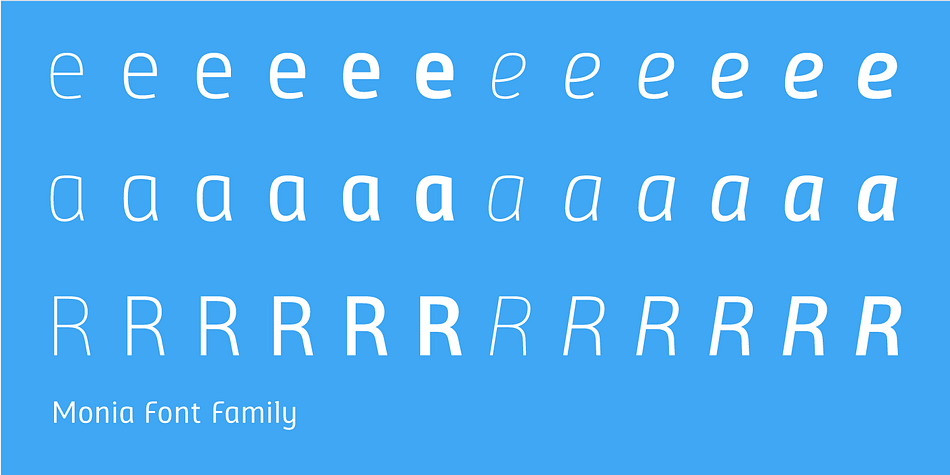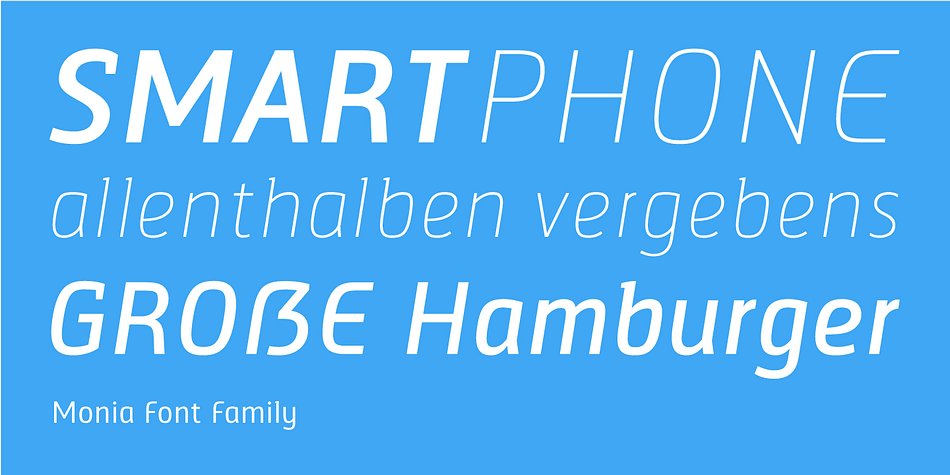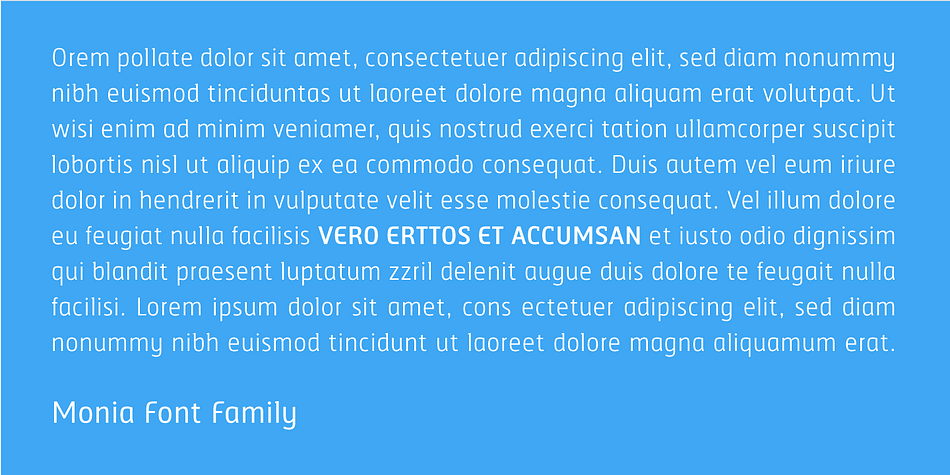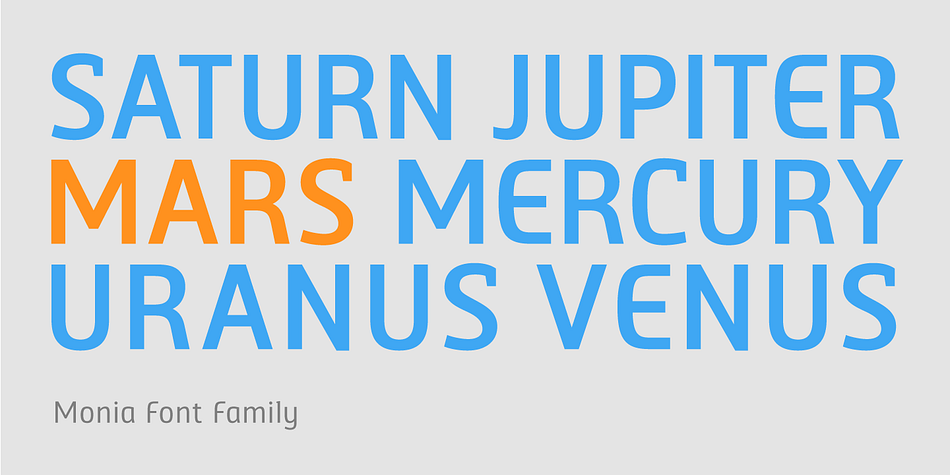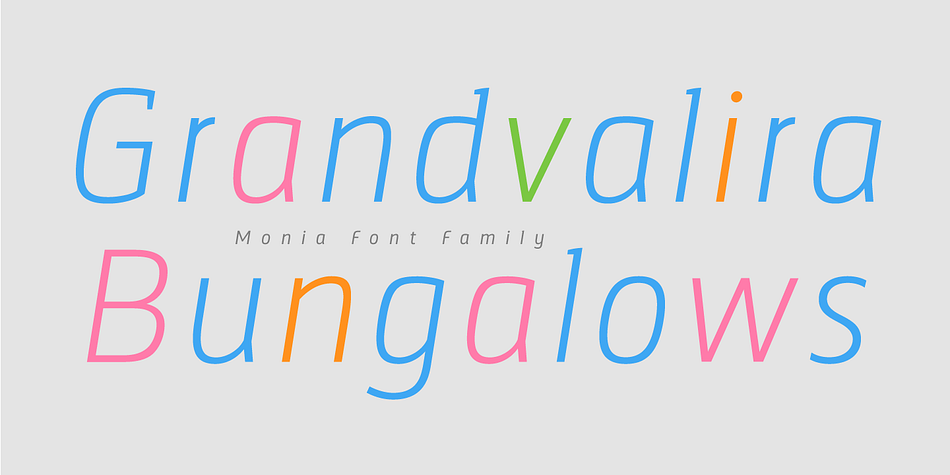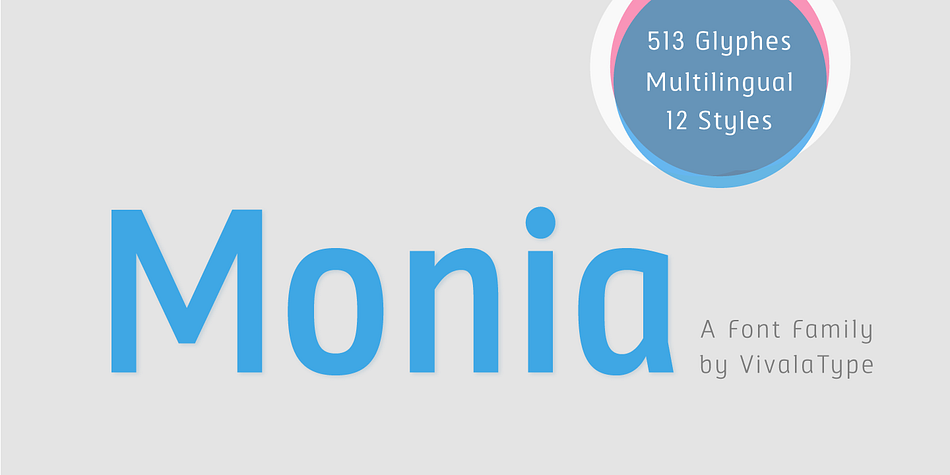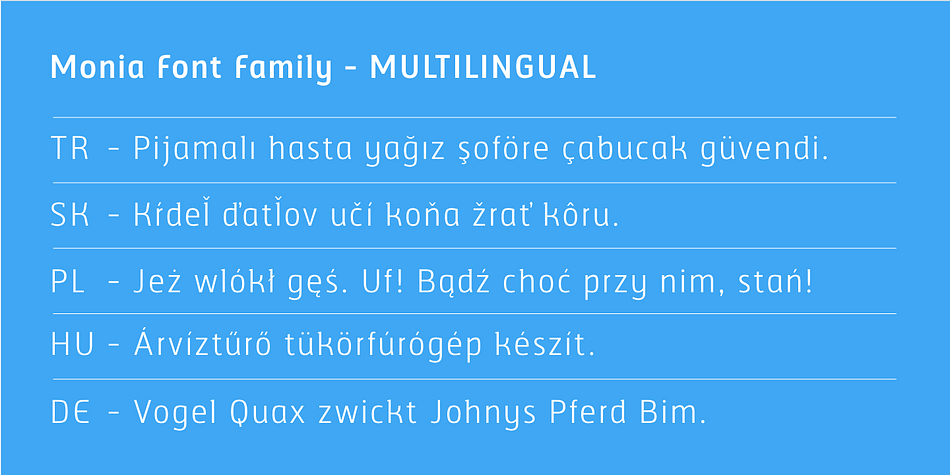
Designed by Johannes Hoffmann, Monia is a sans serif font family. This typeface has twelve styles and was published by Johannes Hoffmann.
Monia is a modern grotesque typeface family designed as a copy and display typeface. With its range of twelve weights, true italic weights, it offers a wide variety of design possibilities such as posters, magazine, corporate or packaging.